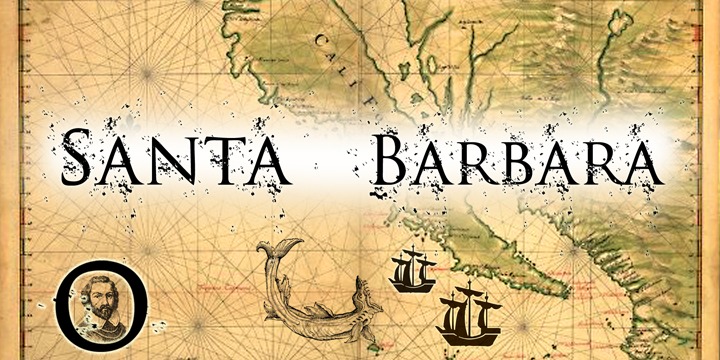
This font was inspired by old Spanish explorer documents and maps such as those from Juan Cabrillo who discovered Santa Barbara in 1542. Many great old maps and documents can be found at the Library of Congress.
Using an outer glow and other layer effects with Adobe Photoshop, Illustrator or InDesign you can create interesting weathered effects with this font.
Santa Barbara